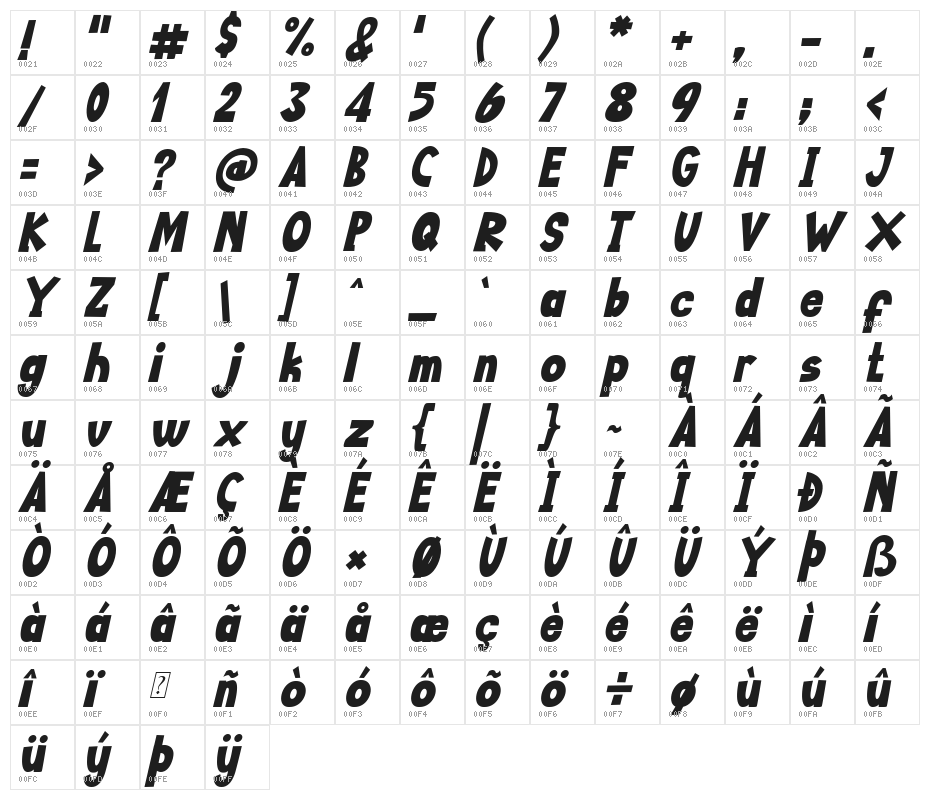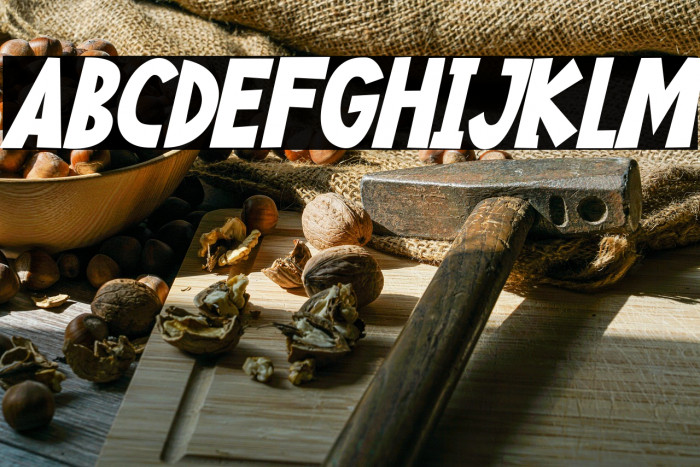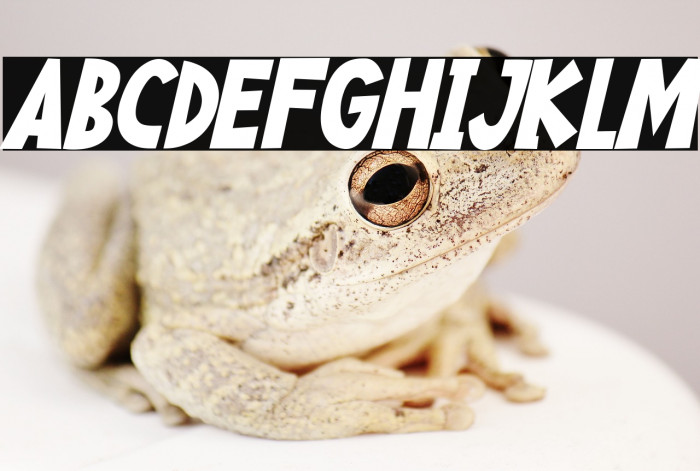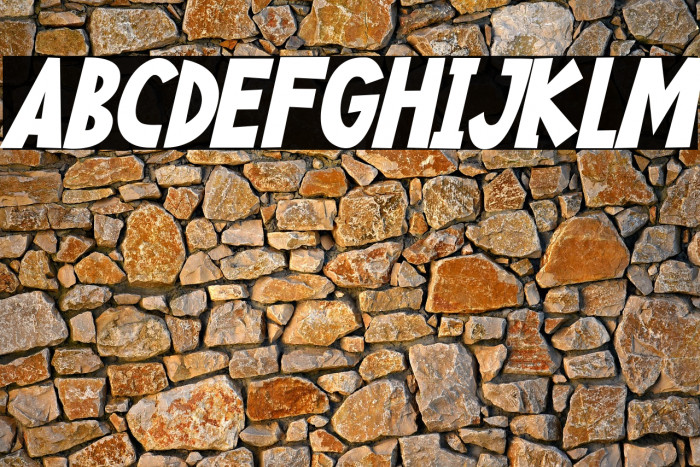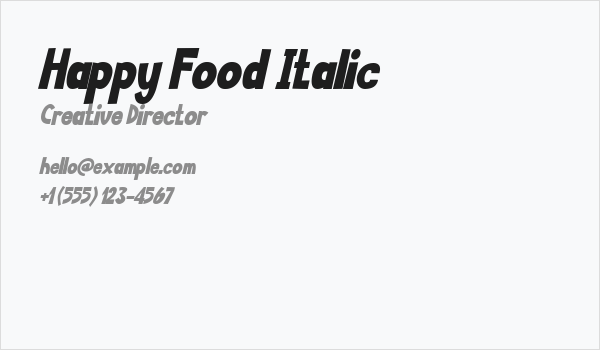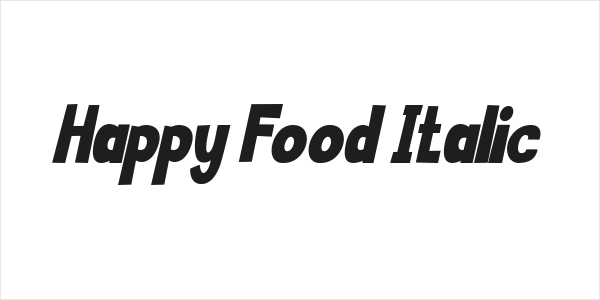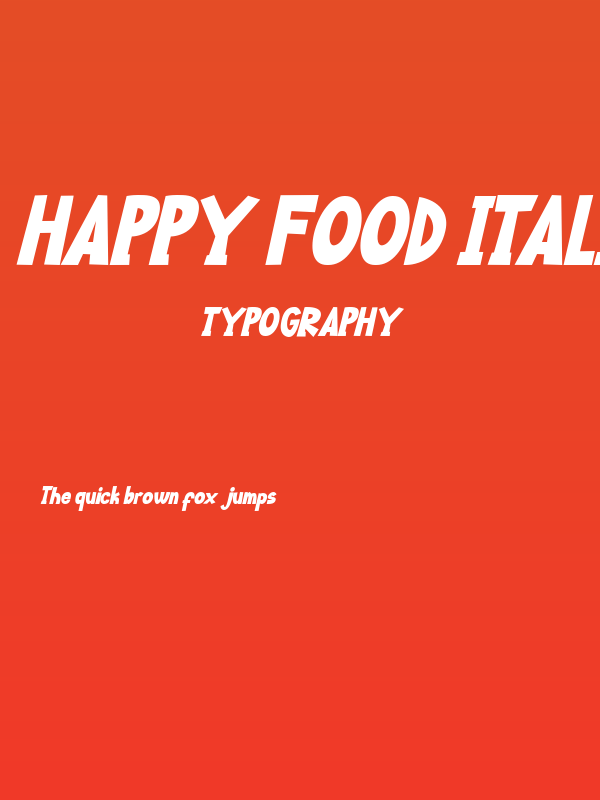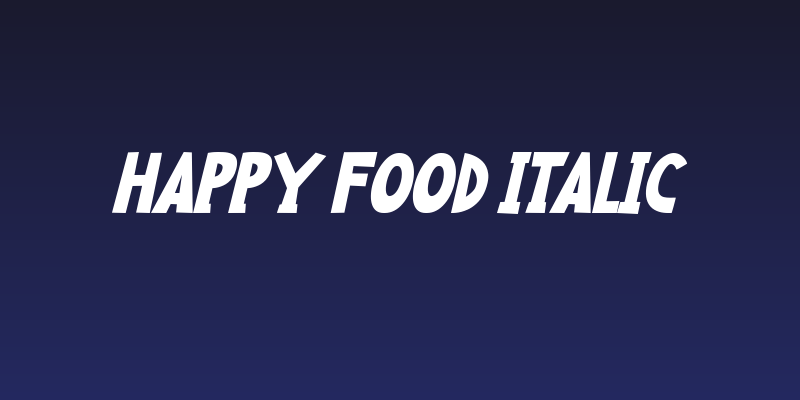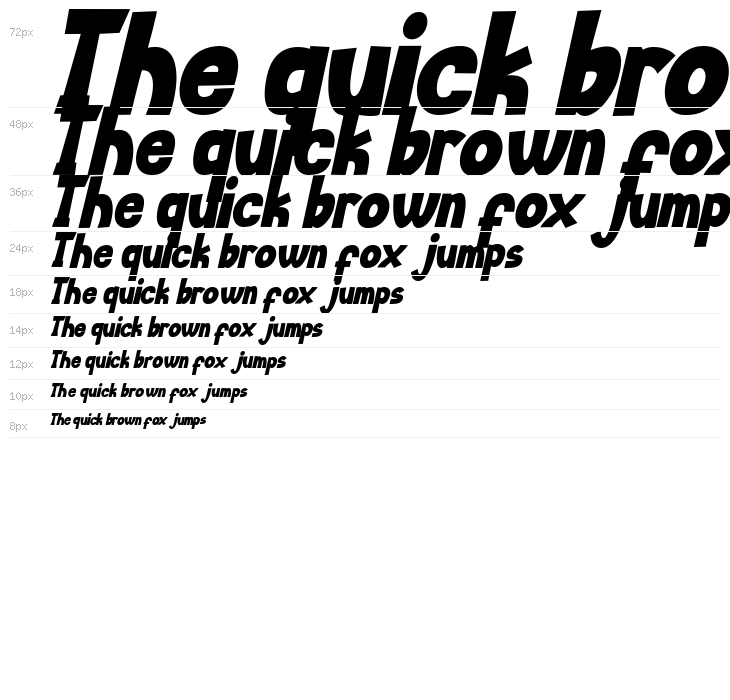
Happy Food Italic Font
Happy Food Italic Description
This font features a bold, italicized style with a playful and dynamic appearance. The characters are thick and slightly slanted, giving a sense of movement and energy. The uppercase and lowercase letters maintain a consistent weight, while the numbers and special characters follow the same bold and lively design. The strokes are smooth and rounded, contributing to a friendly and approachable look. This font is particularly eye-catching and would stand out in various design contexts.